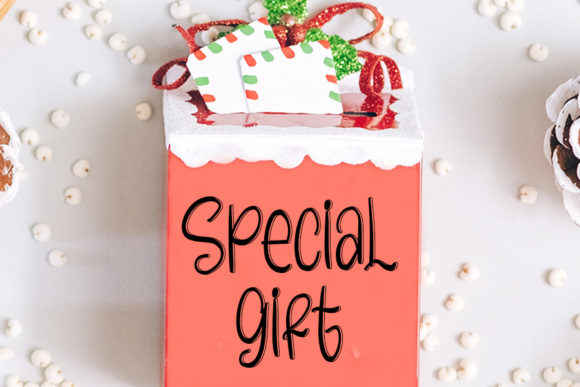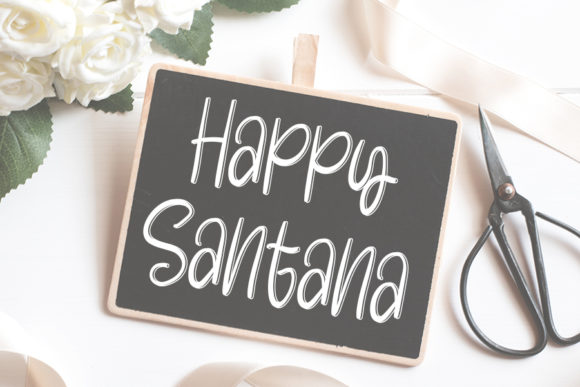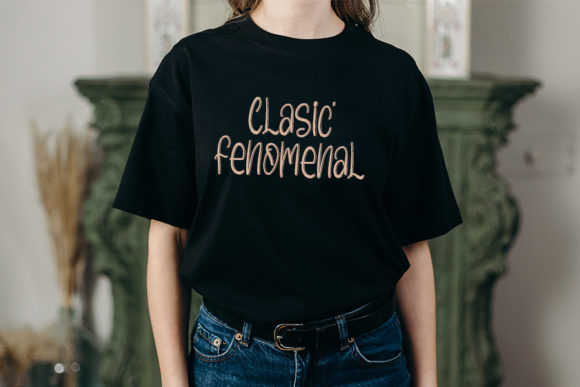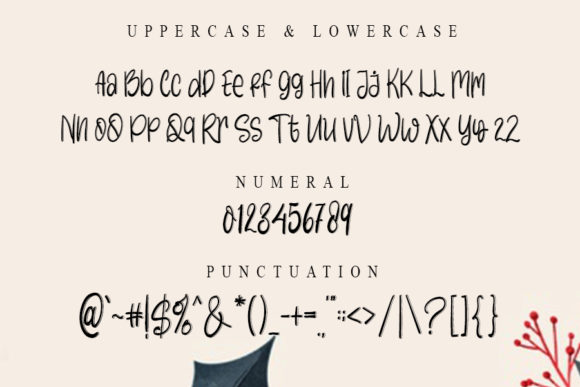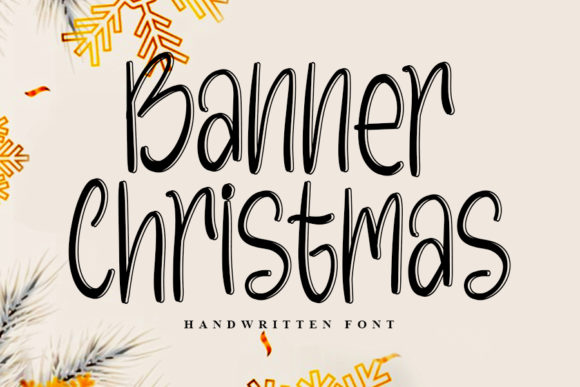
Introducing Banner Christmas Font: The Perfect Holiday Addition to Your Designs
The holiday season is upon us, and with it comes the need for festive and fun designs that capture the spirit of Christmas. For designers and crafters looking to add a personal touch to their holiday-themed projects, Banner Christmas Font is the perfect solution. This fresh and friendly handwritten font is ideal for creating beautiful and eye-catching greeting cards, crafting projects, and more.
What is Banner Christmas Font?
Banner Christmas Font is a unique and charming handwritten font that is specifically designed to bring a touch of holiday cheer to your designs. With its playful and cursive style, this font is perfect for creating a wide range of holiday-themed projects, from Christmas cards and invitations to holiday crafts and decorations.
Key Features of Banner Christmas Font
- Handwritten style: Banner Christmas Font features a beautiful, handwritten style that adds a personal touch to any design.
- Fresh and friendly: This font has a fresh and friendly feel that is perfect for creating holiday designs that are both fun and inviting.
- Ideal for holiday projects: Whether you’re creating Christmas cards, holiday crafts, or festive decorations, Banner Christmas Font is the perfect choice.
Uses for Banner Christmas Font
Banner Christmas Font is a versatile font that can be used for a wide range of holiday-themed projects, including:
- Christmas cards and invitations: Create beautiful and eye-catching Christmas cards and invitations with Banner Christmas Font.
- Holiday crafts: Add a personal touch to your holiday crafts, such as decorations, gift tags, and more.
- Festive decorations: Use Banner Christmas Font to create festive decorations, such as holiday banners and signs.
- Social media graphics: Create fun and festive social media graphics, such as holiday-themed Facebook posts and Instagram stories.
Tips for Using Banner Christmas Font
- Keep it simple: Banner Christmas Font is a playful font, so keep your design simple and uncluttered to let the font shine.
Banner Christmas Font is a fresh and friendly handwritten font that is perfect for adding a personal touch to your holiday-themed designs. With its playful and cursive style, this font is ideal for creating a wide range of holiday projects, from Christmas cards and invitations to holiday crafts and decorations. So why wait? Download Banner Christmas Font today and start creating beautiful and eye-catching holiday designs!